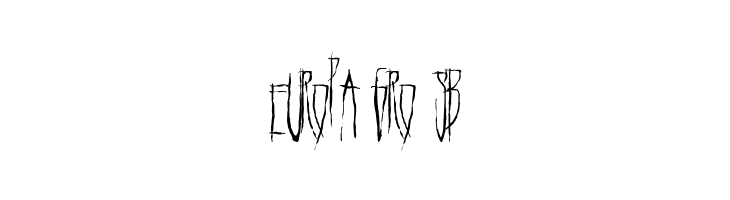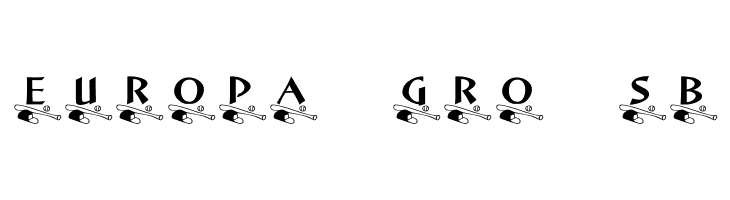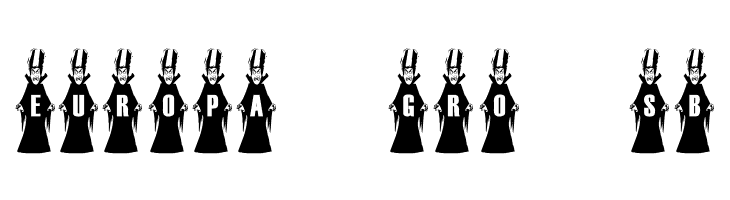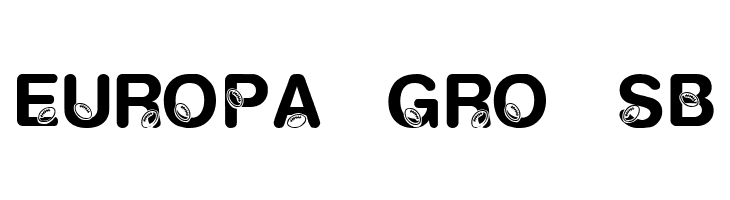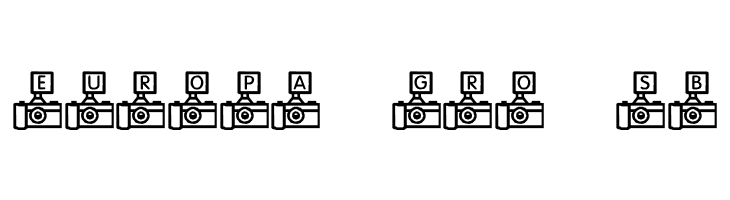
A spooky, jagged font with an eerie, horror-inspired style.
A playful, baseball-themed font with bold, stylized letters and sporty motifs.
A playful, basketball-themed decorative font with bold characters.
A playful, horror-themed decorative font with characters embedded in stylized figures.
A bold, playful font with football-themed decorations on each letter.
A playful font with letters on skateboards, perfect for sporty or youthful designs.
A bold, decorative font with alien and robot motifs for a playful, futuristic look.
A decorative font with letters integrated into camera icons, perfect for photography-themed projects.
A playful, heart-themed font with bold, rounded letters and decorative flame accents.